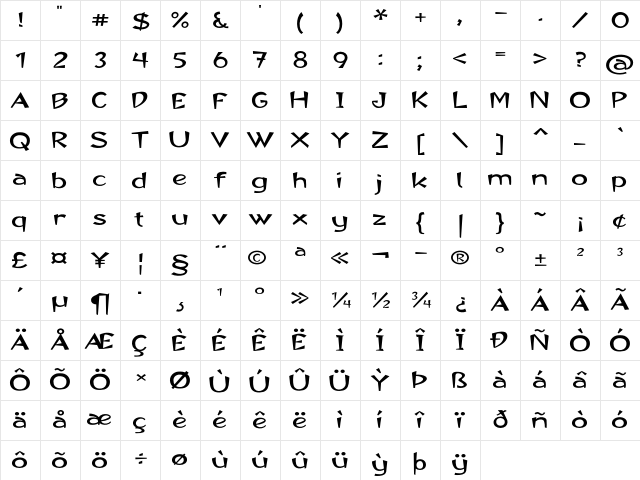
Edamame Expanded Regular
Style: Expanded Regular
Edamame Family
Design Context for Edamame
Edamame is a composed and adaptable typeface that performs quietly and consistently across a wide range of design contexts.